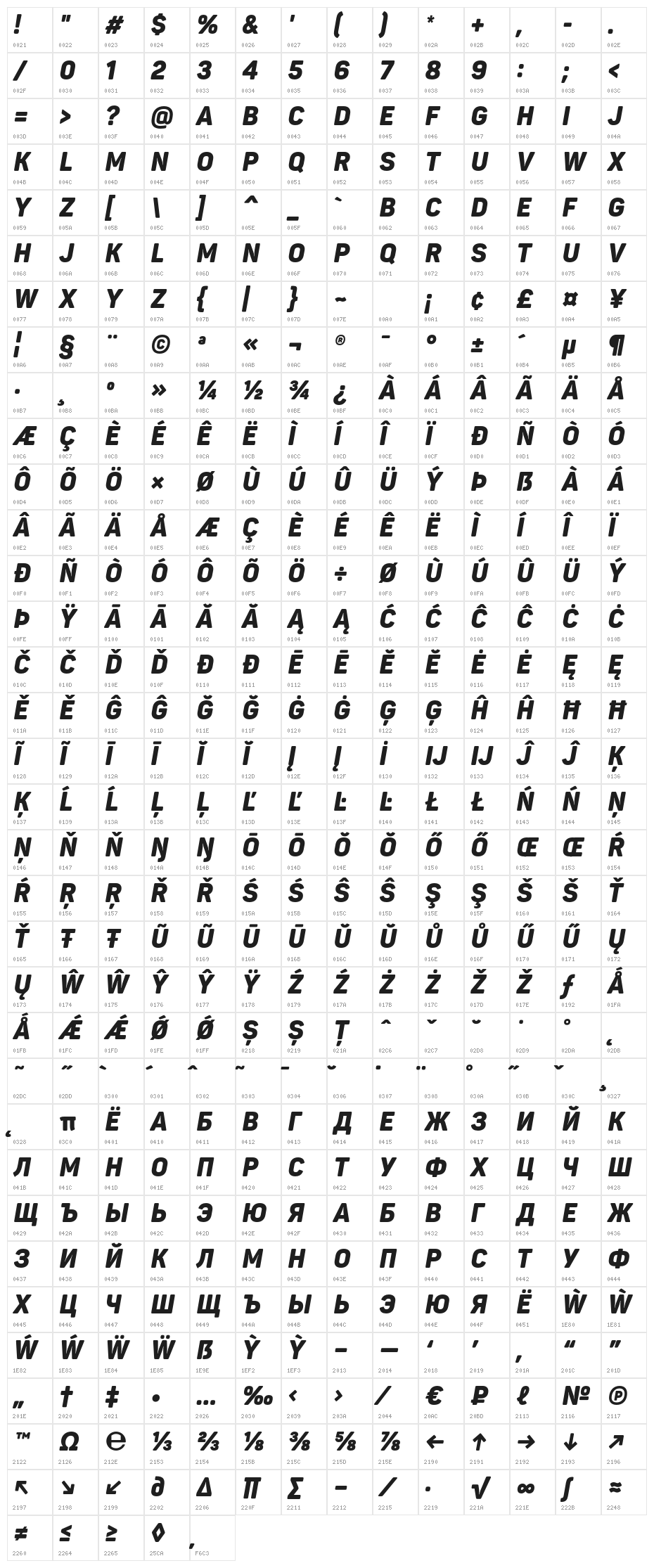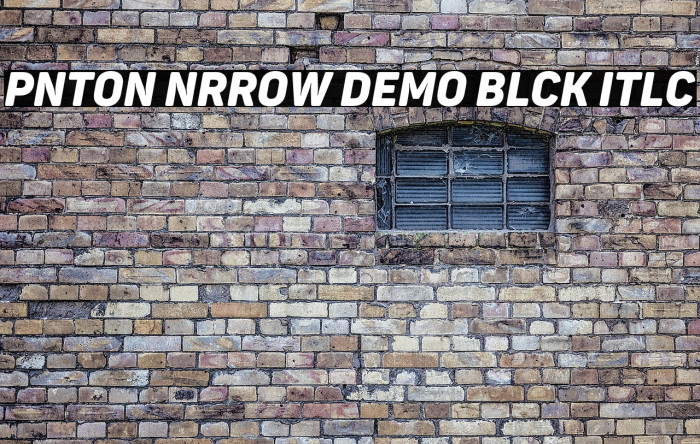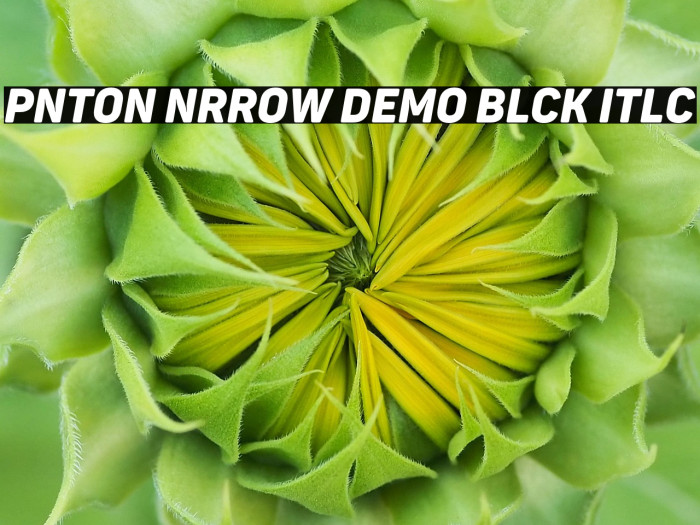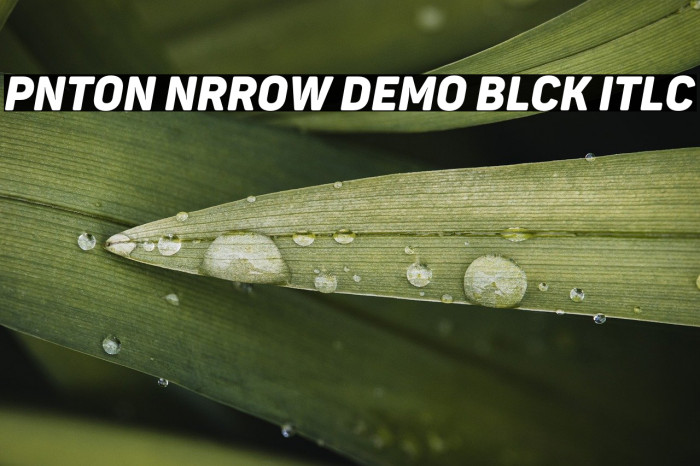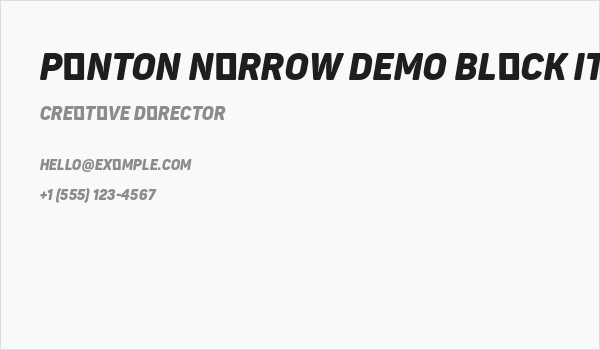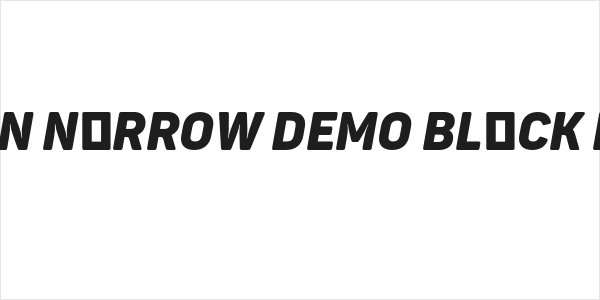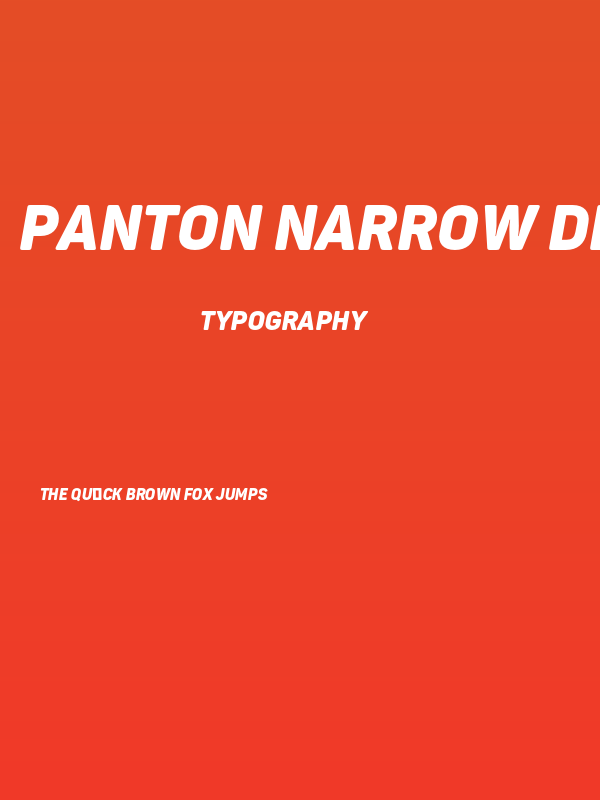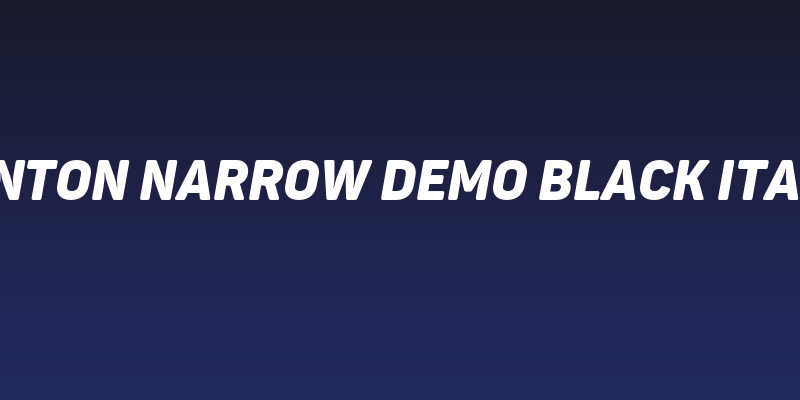
Panton Narrow Demo Black Italic Font
Panton Narrow Demo Black Italic Description
This font features a bold and italicized style with a narrow width, giving it a modern and dynamic appearance. The characters are designed with a consistent stroke thickness, providing a uniform look across all letters and numbers. The italic slant adds a sense of motion and urgency, making it suitable for attention-grabbing headlines. The font maintains a clean and professional aesthetic, with slightly rounded edges that soften its boldness. The character spacing is tight, which enhances its compact and efficient design. This font is versatile, suitable for various design projects that require a strong and impactful visual presence.
| Proposed Projects | Ideal for headlines, posters, branding, and advertising materials. |